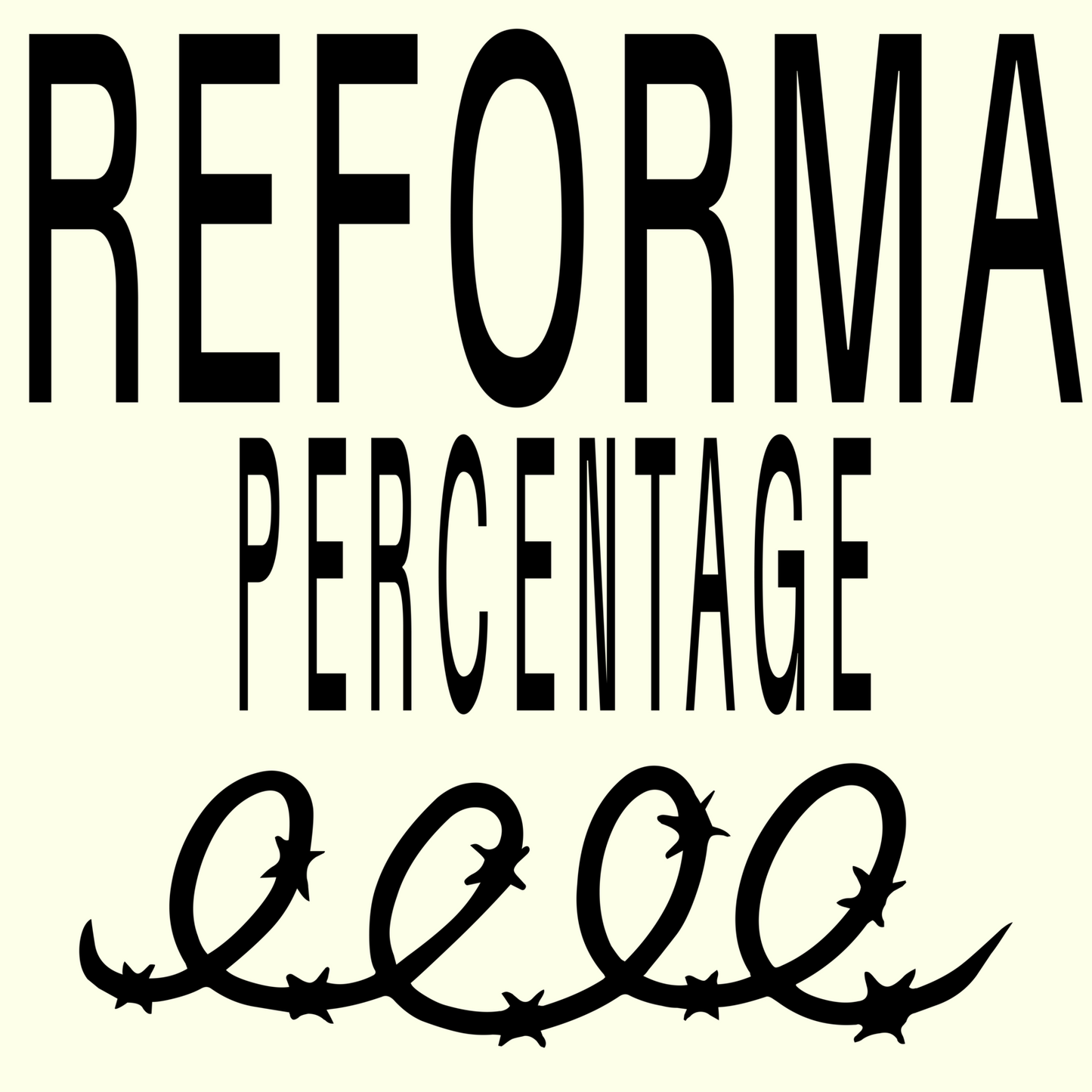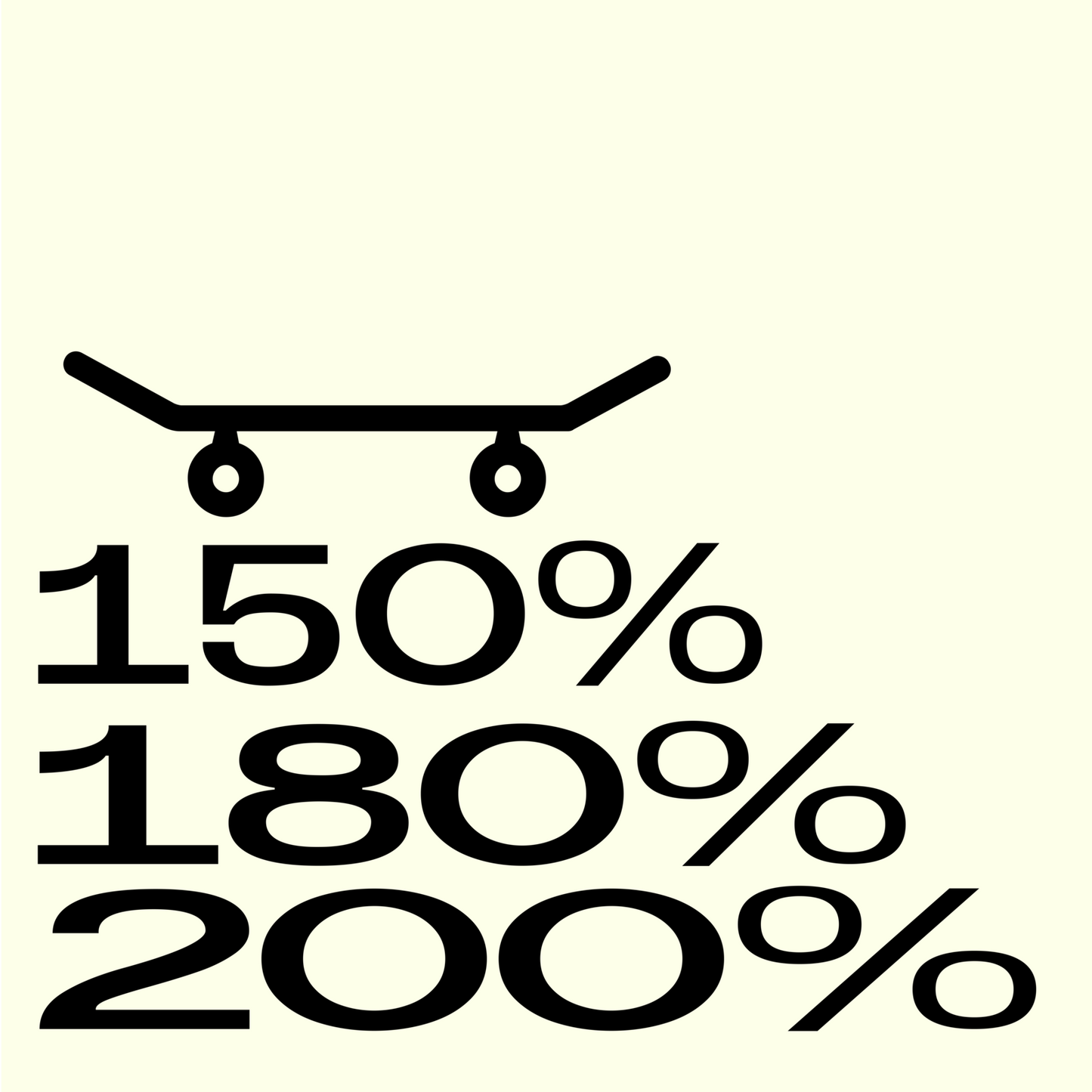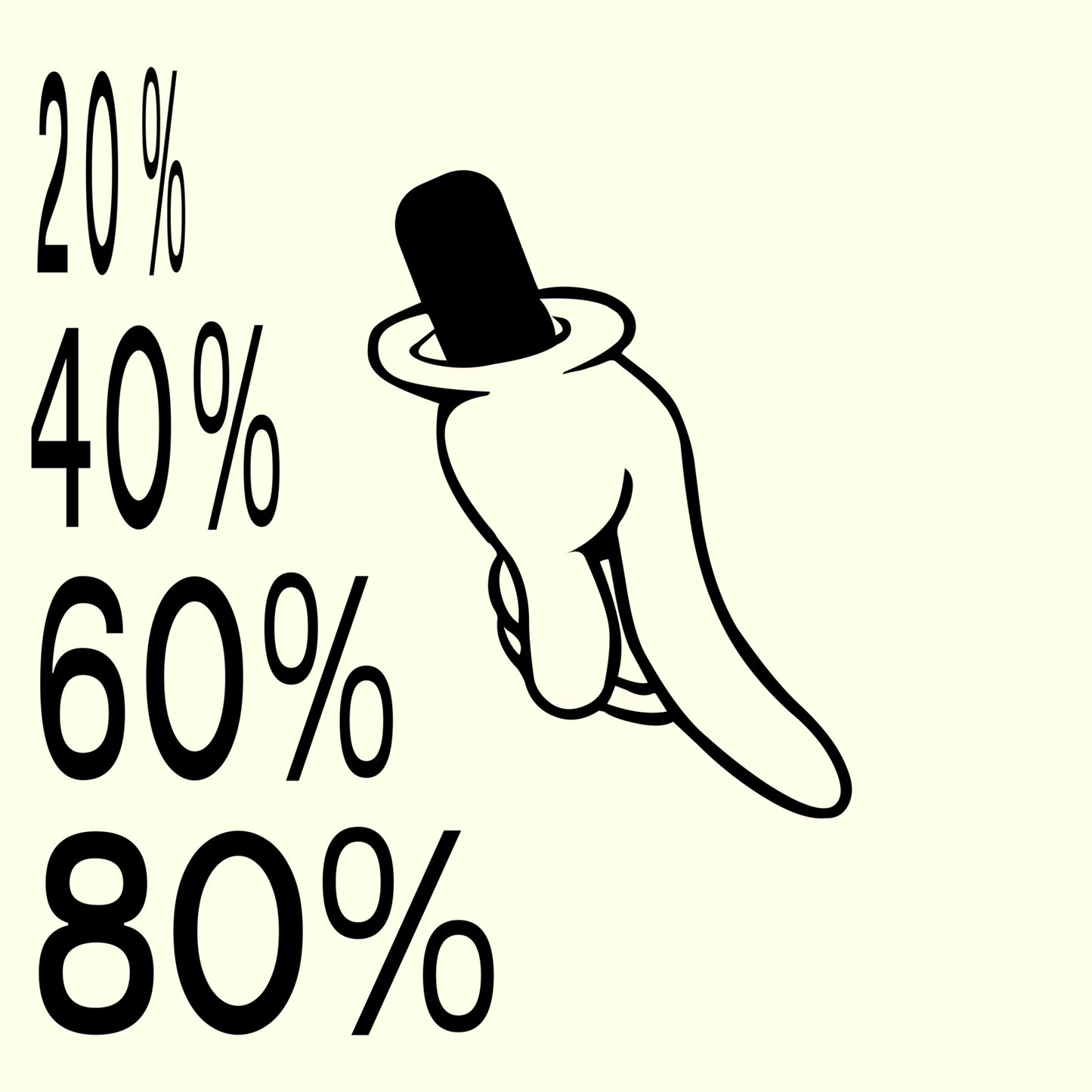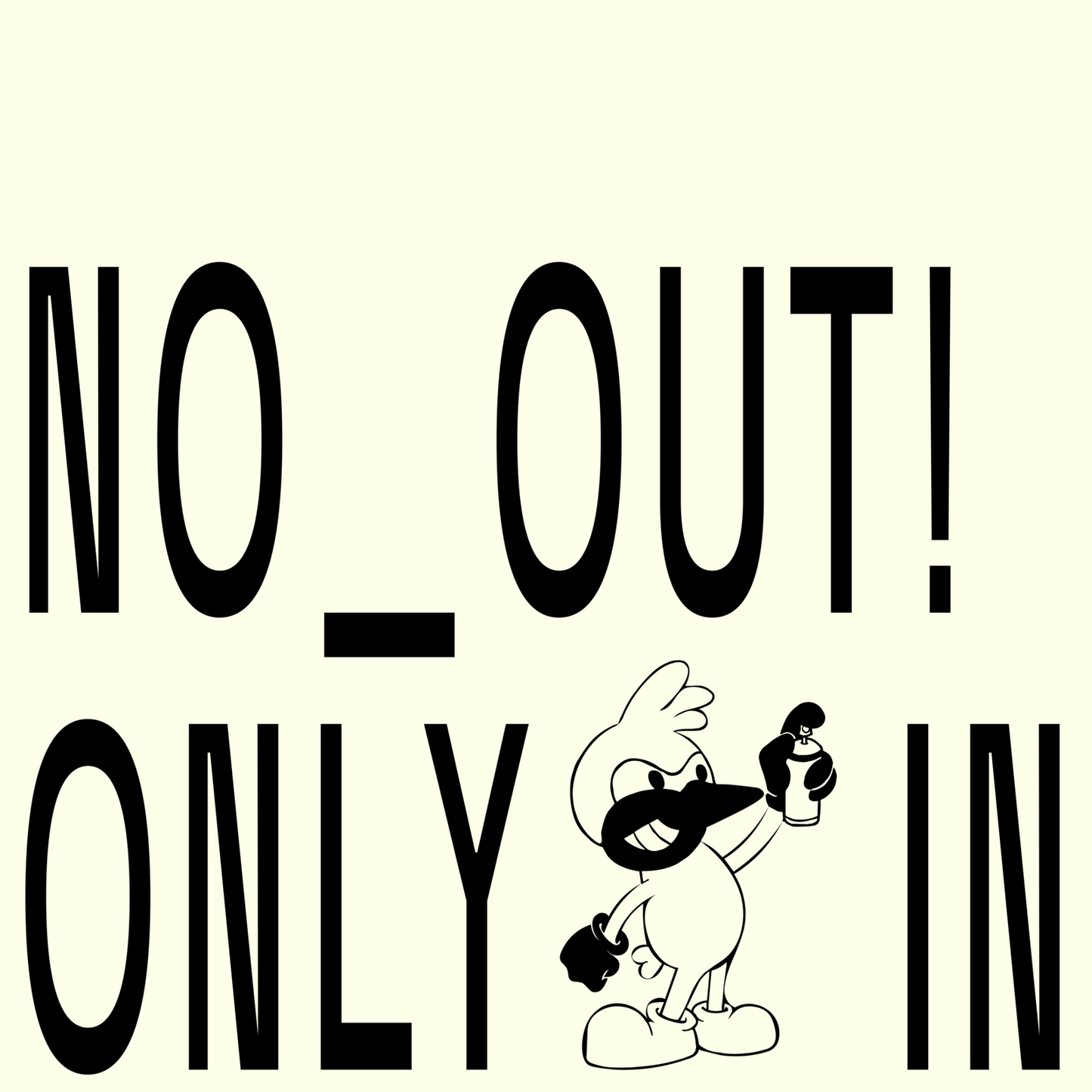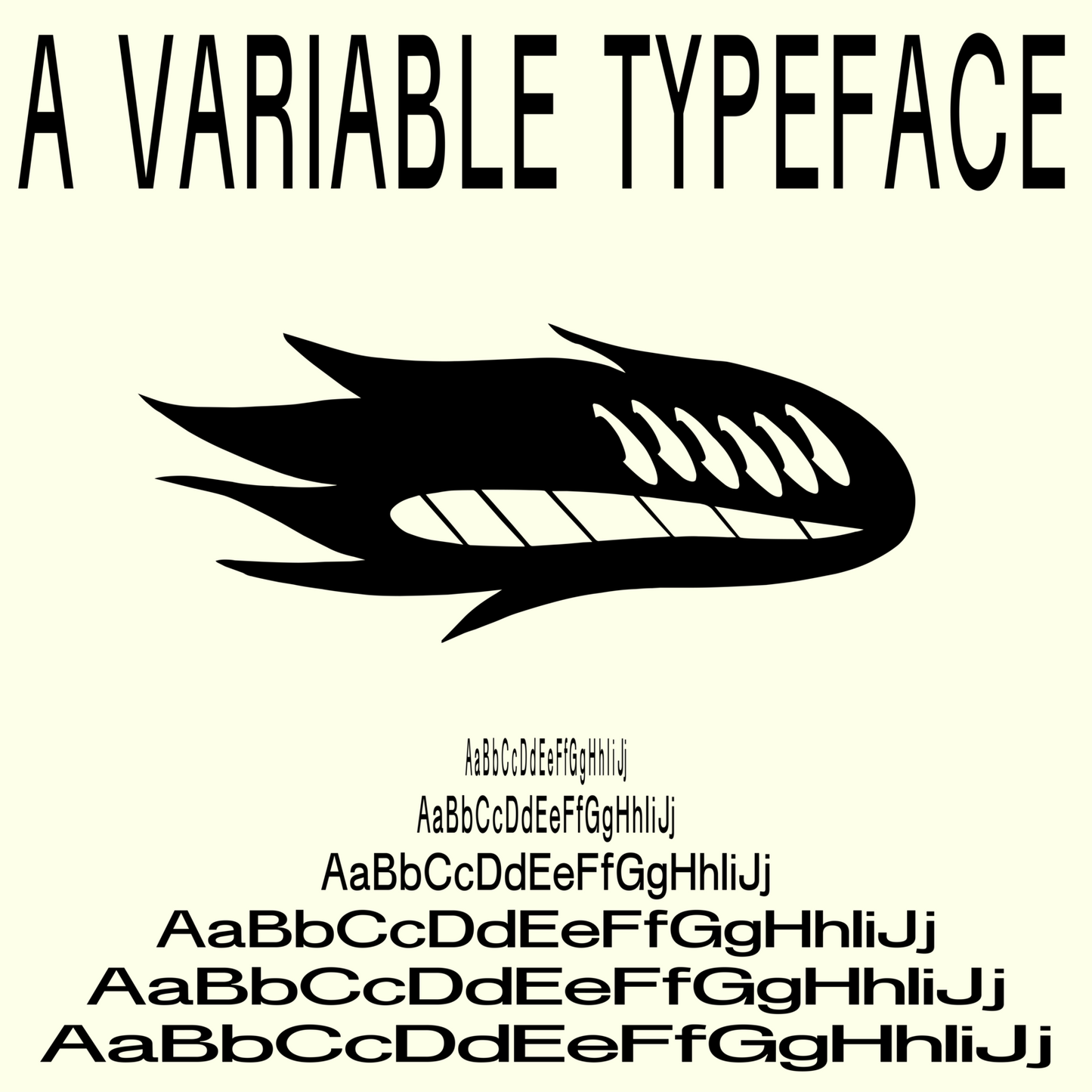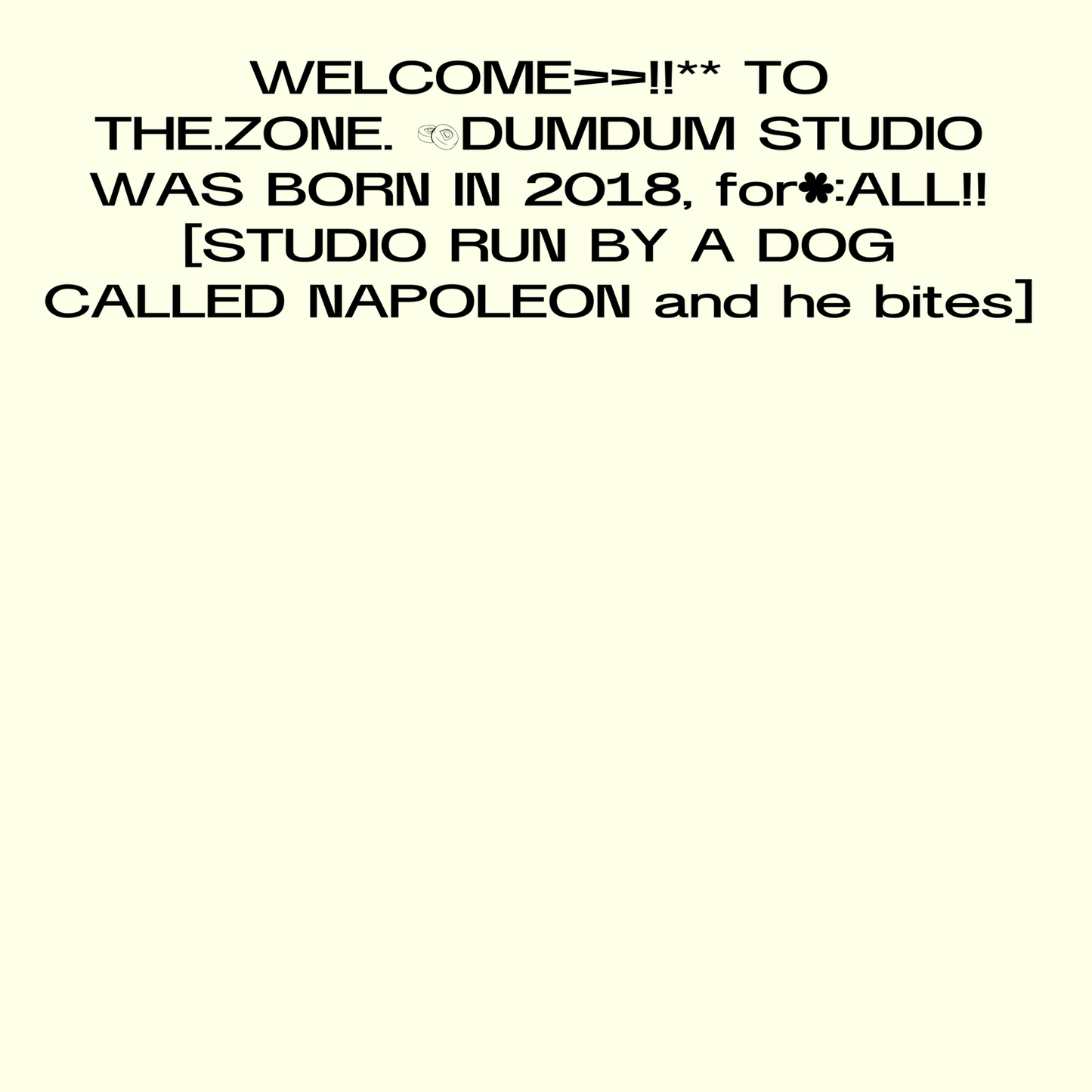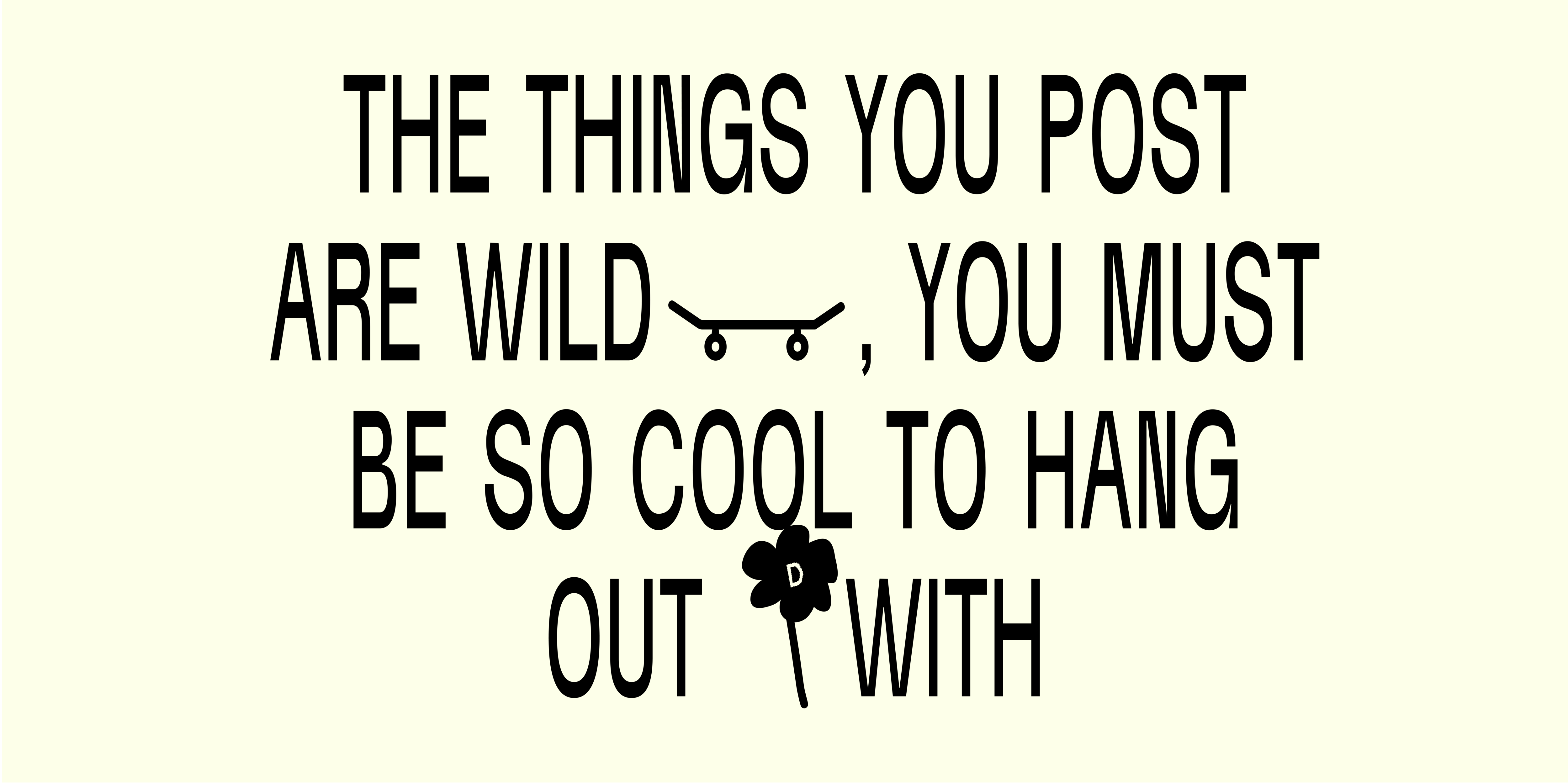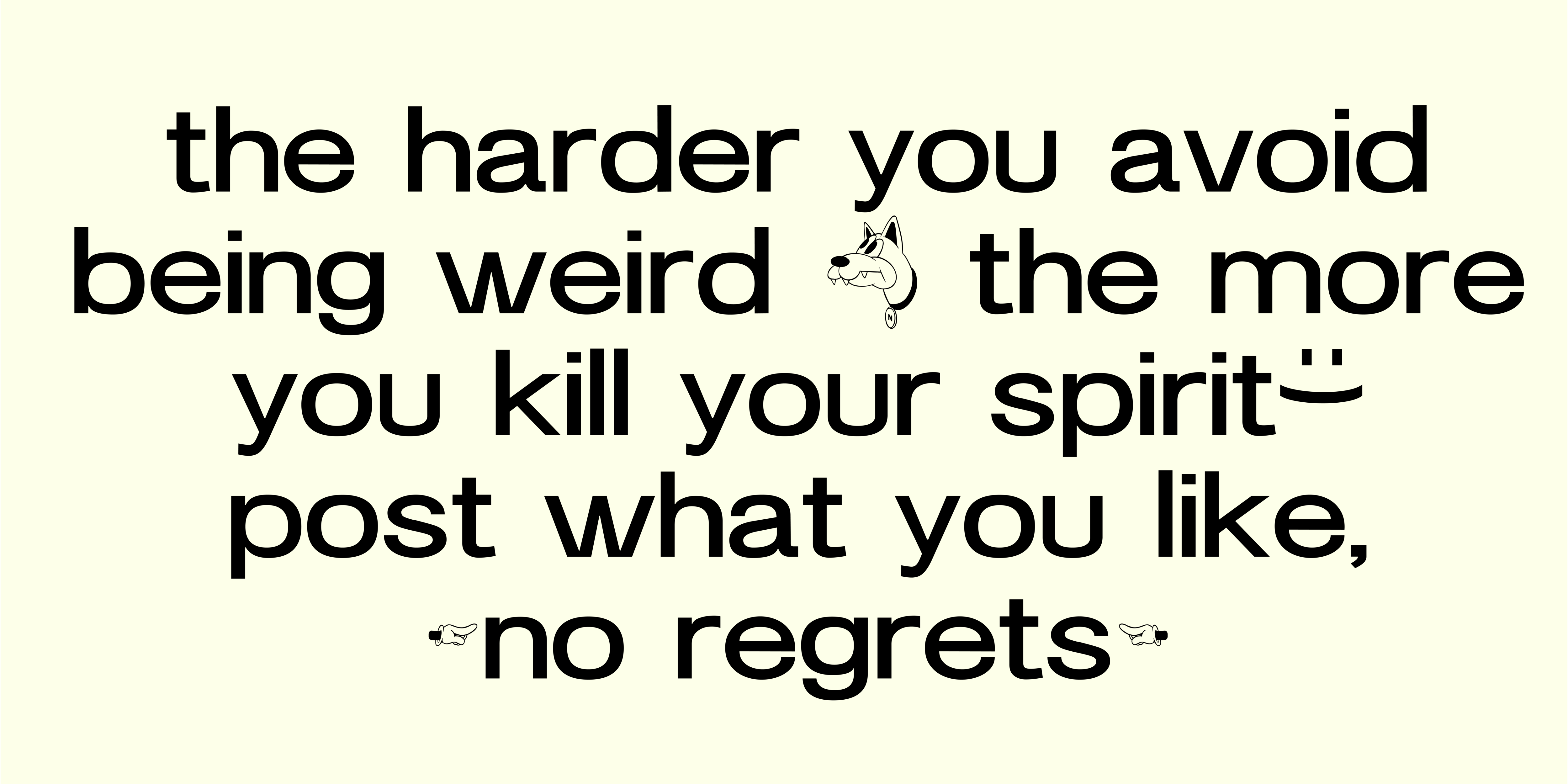
Reforma Percentage
Reforma Sans was originally developed in collaboration with Aldo Arillo. The typeface was created as a reflection of the studio’s identity, inspired by its birthplace—Reforma Street, where DUM DUM STUDIO was founded. Beyond its geographic reference, Reforma also embodies the concept of "reform"—the act of reshaping, refining, and evolving.
This typeface includes illustrated icons and elements designed by Peemouh and Mario Julian, adding a unique visual layer to its character. Additionally, Reforma Sans features a "%" style structure—which is automatically compressed and stretched, as well as a Slanted version for added versatility. Reforma Sans will continue to grow, exploring new ideas and expanding its possibilities.
— LIGATURES
— ALTERNATES AND SUBSTITUTES